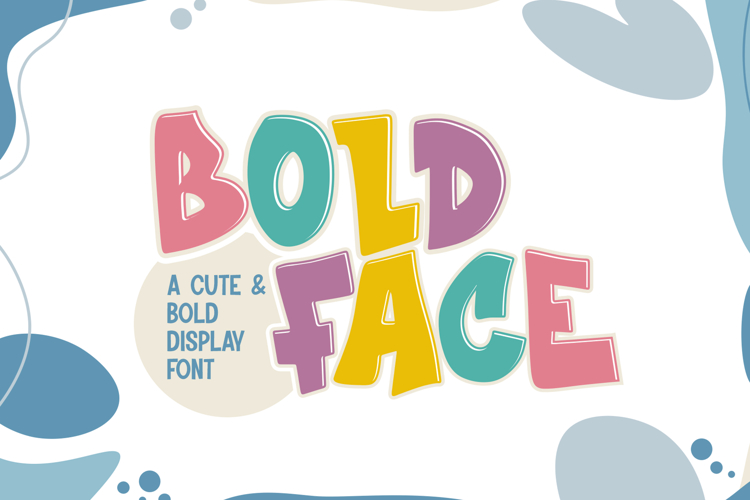
Boldface - Comical Bold Font
Introducing Boldface – the ultimate Comical Bold Font that adds a burst of fun and vibrant energy to your designs. Perfectly blending playful charm with bold, eye-catching strokes, Boldface is designed to make your projects stand out with a lively and dynamic personality.
🎨 Playful and Vibrant: Boldface captures the essence of comic book fun with its exaggerated and whimsical characters. Each letter is infused with a sense of humor and excitement, making it ideal for projects that need a touch of lightheartedness and joy.
💥 Bold and Eye-Catching: True to its name, Boldface delivers a striking visual impact with its thick, robust strokes. Whether you're designing posters, banners, or social media graphics, this font ensures your message grabs attention and makes a memorable impression.
🖌️ Versatile Application: Boldface is perfect for a wide range of creative projects. From children's book covers and playful advertisements to lively event invitations and quirky merchandise, this font brings a cheerful and engaging look to any design.
🌟 Dynamic and Expressive: The dynamic letterforms of Boldface add a sense of movement and excitement to your text. Its comical style is perfect for headlines, titles, and other prominent elements, helping your content stand out with a fun and animated vibe.
🖋️ Carefully Crafted: Each character in Boldface is meticulously designed to ensure readability and visual appeal. The bold and exaggerated forms are balanced to maintain clarity while delivering a powerful and entertaining look.
Inject some fun into your designs with Boldface – the Comical Bold Font that combines playful charm with striking boldness. Perfect for making your projects pop with vibrant energy, Boldface is your go-to font for adding a cheerful and dynamic touch to any creative endeavor.